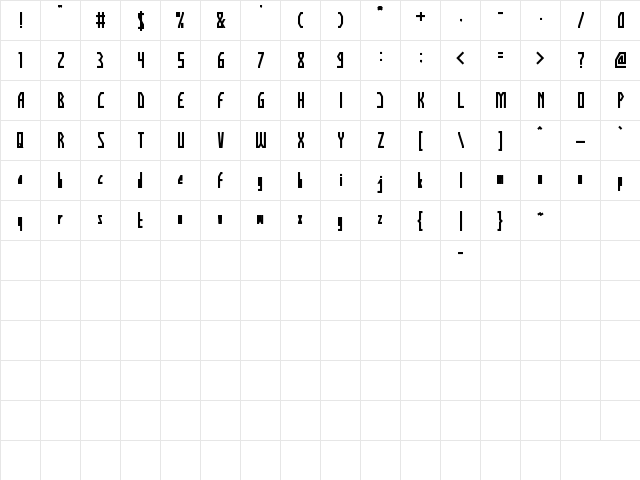
HUMAN ALTER EGO is a composed and adaptable typeface that performs quietly and consistently across a wide range of design contexts. Its bold stroke weight gives it real presence on the page.